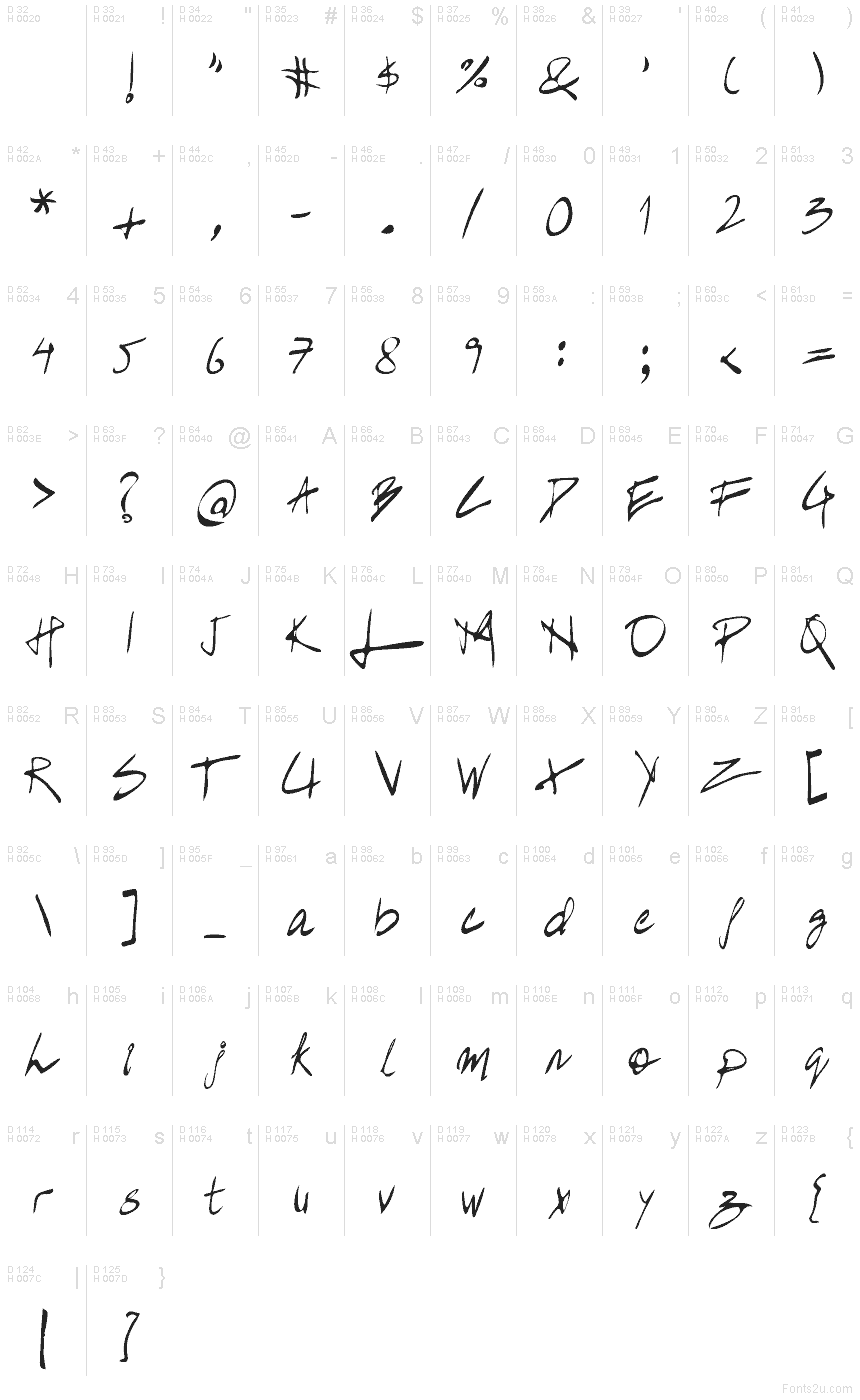
Rough Mira Regular
Rough Mira font by Is a Day is a free rough script display font. Its scratchy, high-contrast strokes feel ripped from a dry, overworked marker, with wiry thins, sudden slashes, and inky burrs that leave a raw edge. The staggered baseline and restless rhythm channel note-on-a-wall energy while staying readable at headline sizes.
Using Rough Mira, headlines punch through on gig posters, DIY zines, horror titles, album covers, streetwear branding, protest graphics, and gritty packaging. This free font thrives when it’s big and unapologetic; keep tracking slightly loose to let the spikes breathe, and pair it with a clean condensed sans for body copy to sharpen the contrast.
This is the Latin version of the Mira typeface font family. It originated during the typeface design for the Manipuri language (Meitei Mayek) and was named Meitei Mira.